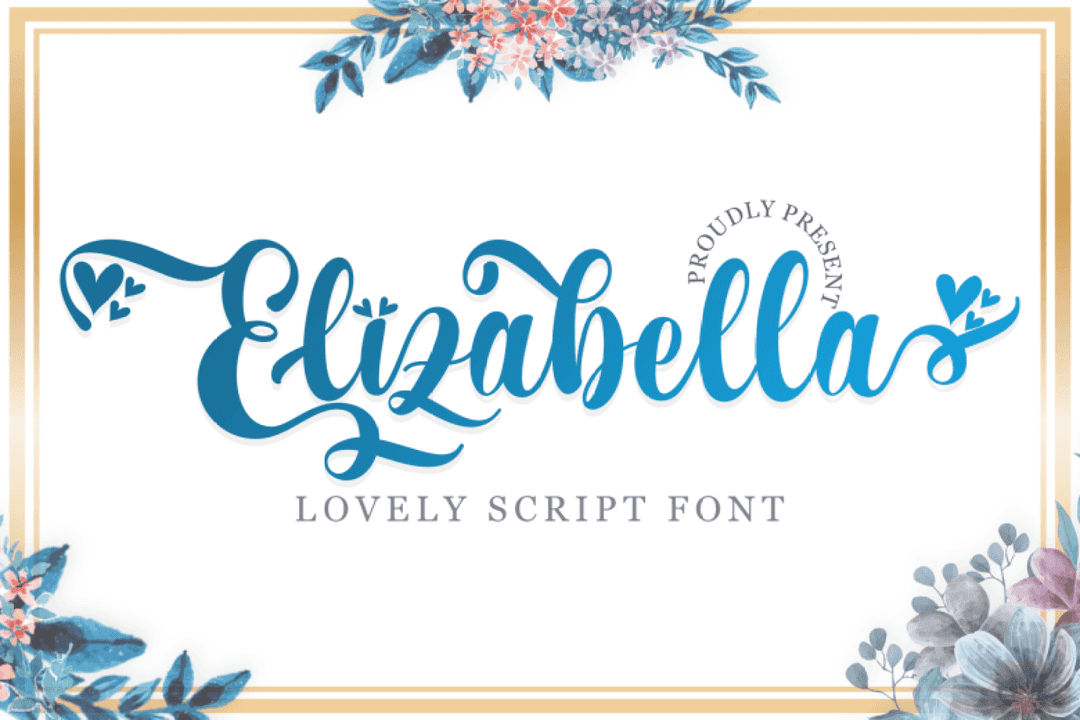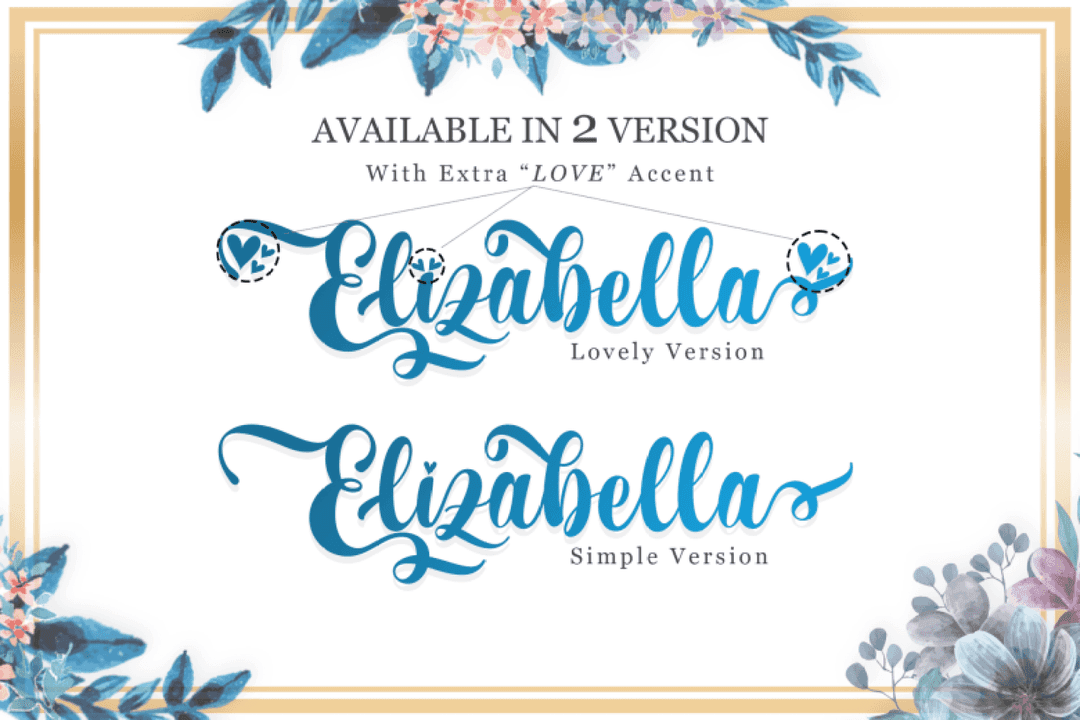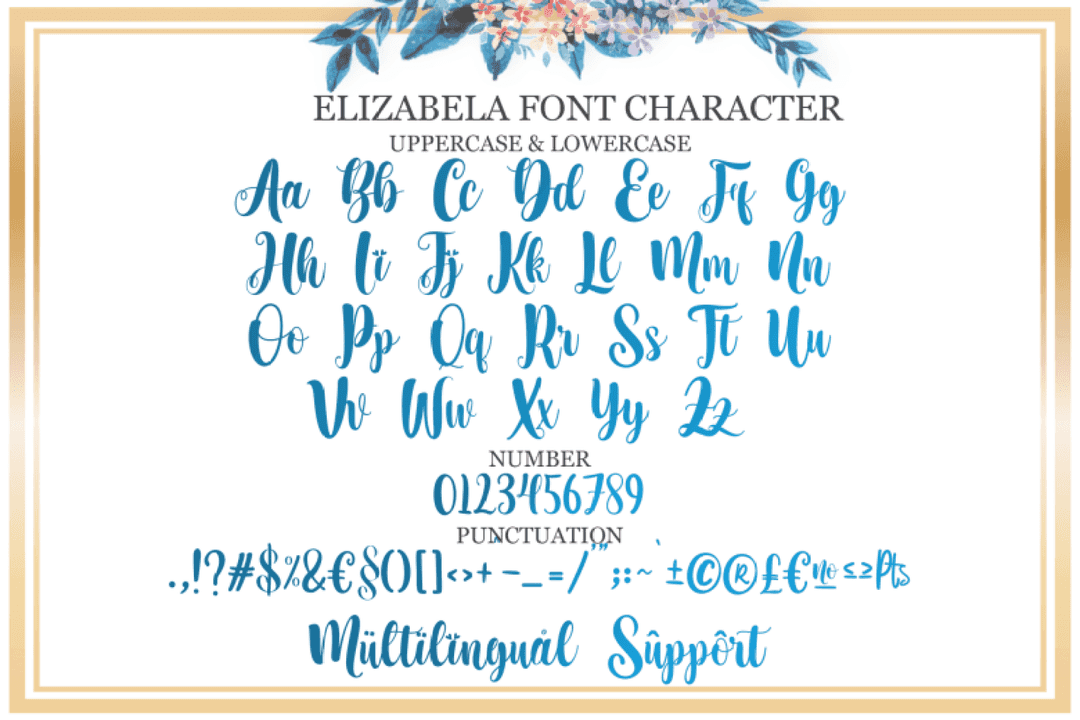
Elizabella can only be described as an incredible script font. Not only does this font boast beautiful craftsmanship and precision, it can also be PUA encoded to provide easy access to all its glyphs and swashes!